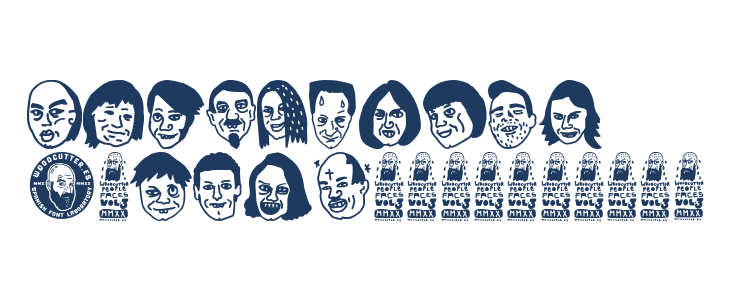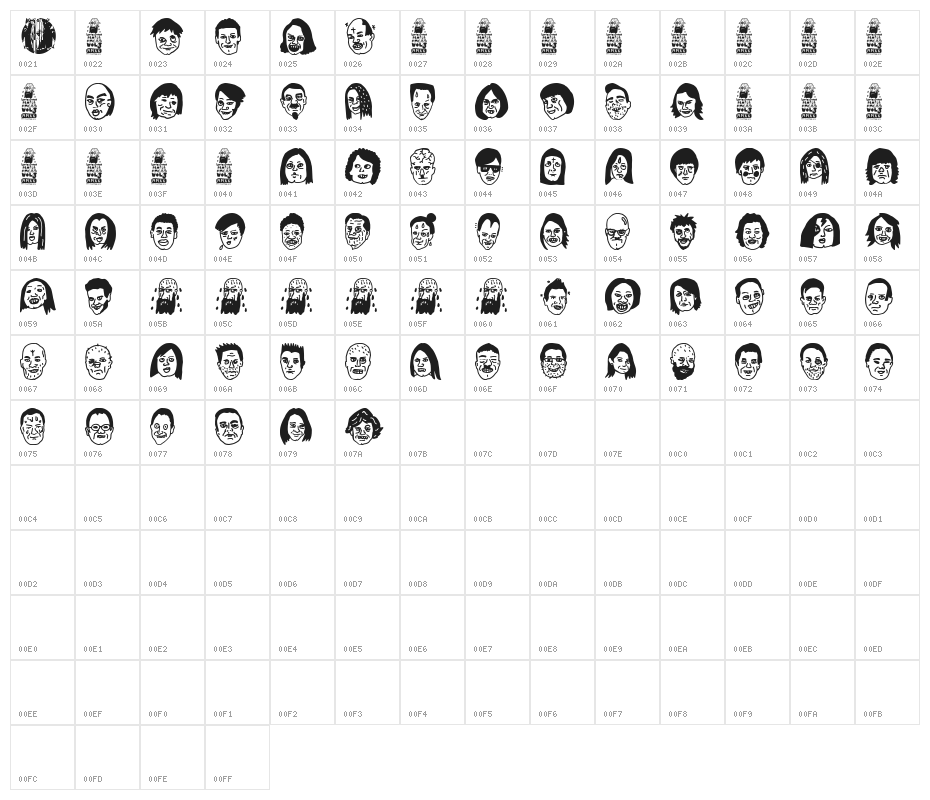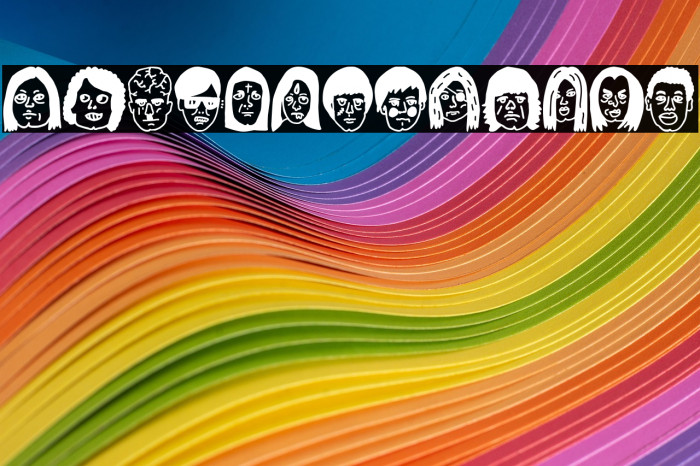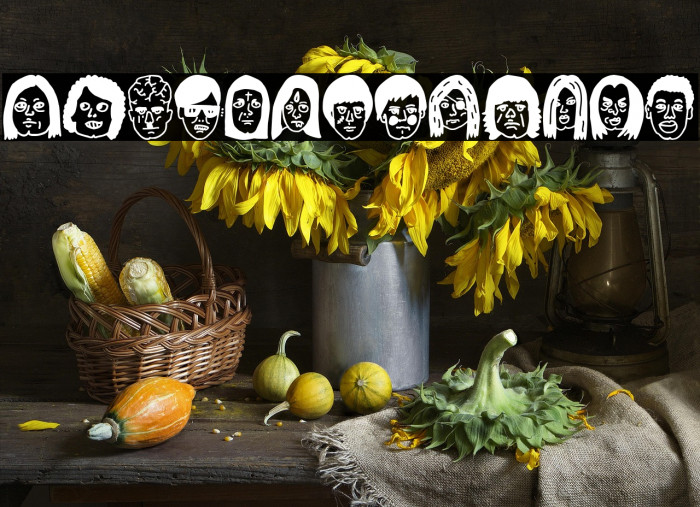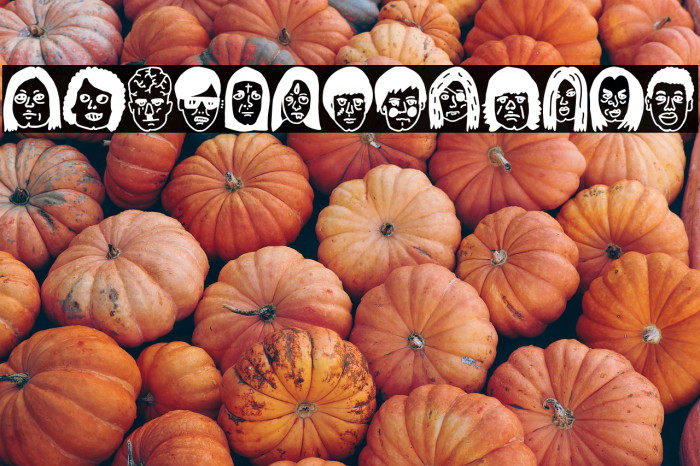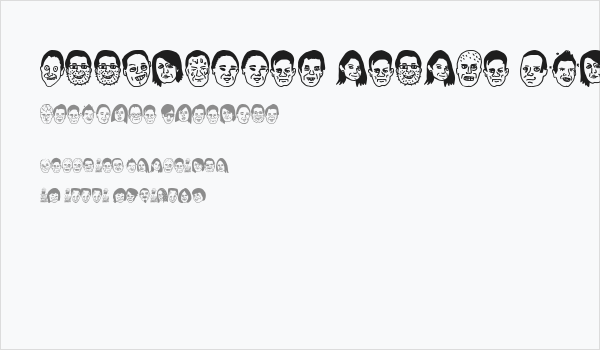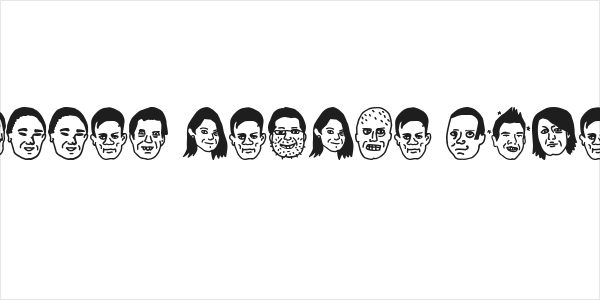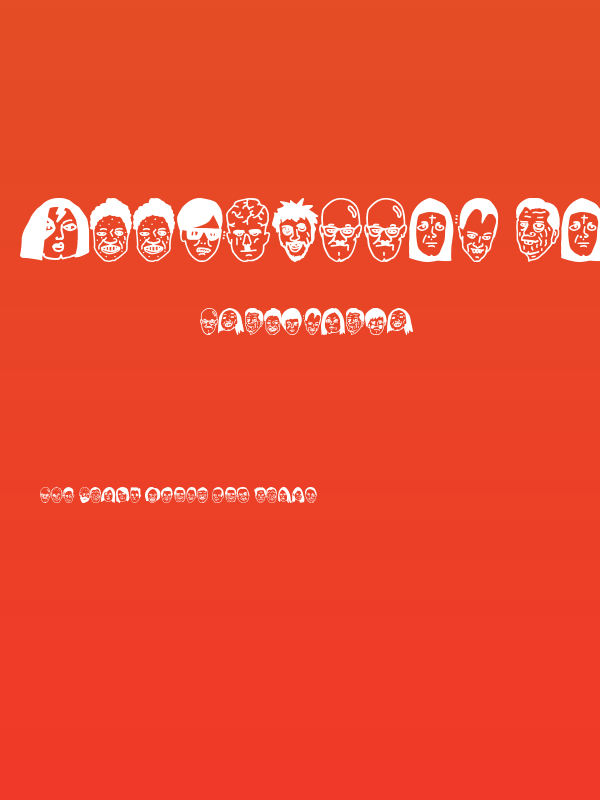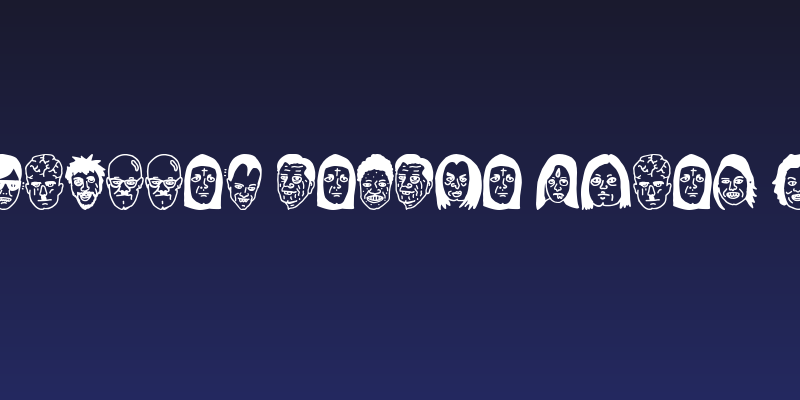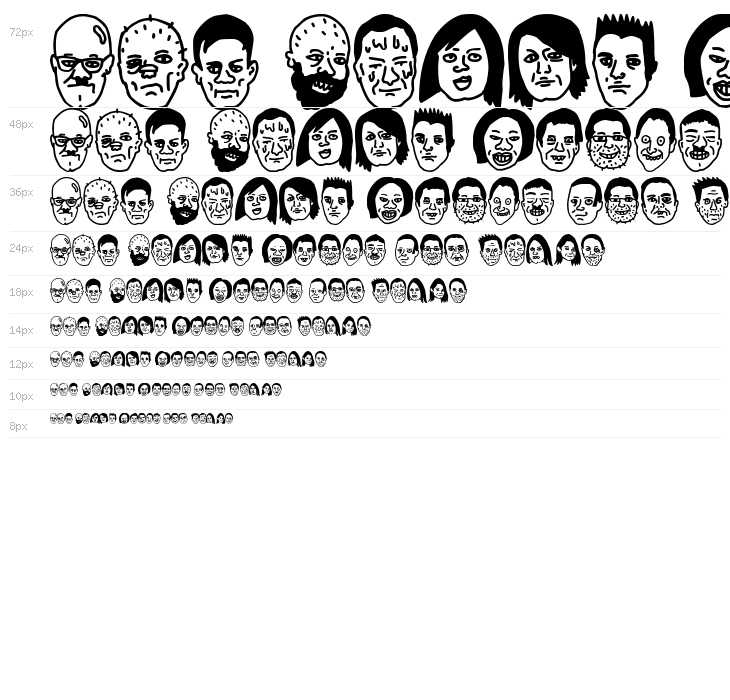
woodcutter people faces vol3 Font
woodcutter people faces vol3 Description
A highly decorative and illustrative font featuring hand-drawn, cartoonish human faces for each character, with exaggerated and varied facial expressions and hairstyles. The style is bold, playful, and somewhat grotesque, making each glyph unique and visually engaging.
| Overall Style | Decorative, Playful, Grotesque |
| Use Case | Logos, Headlines, Posters, Artistic projects |
| Proposed Projects | Posters, album covers, event flyers, comics, zines, creative branding, Halloween or horror-themed designs. |